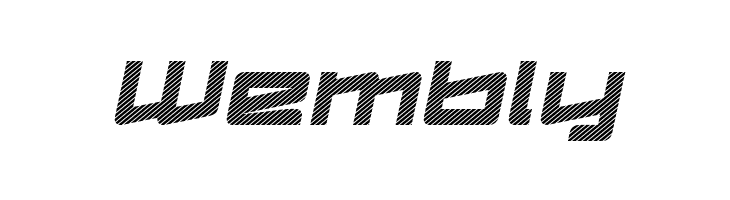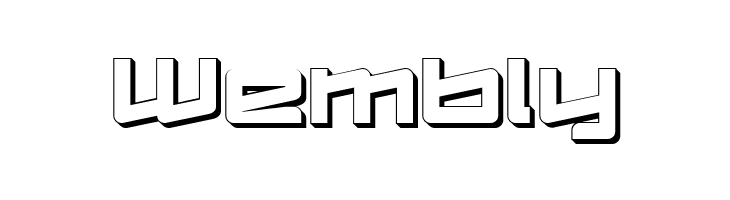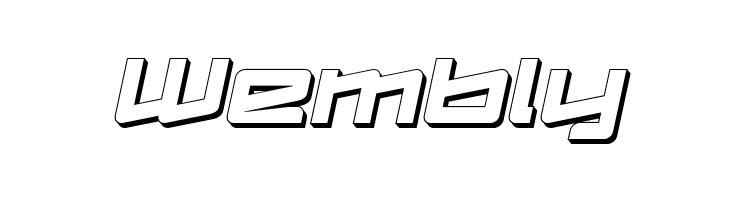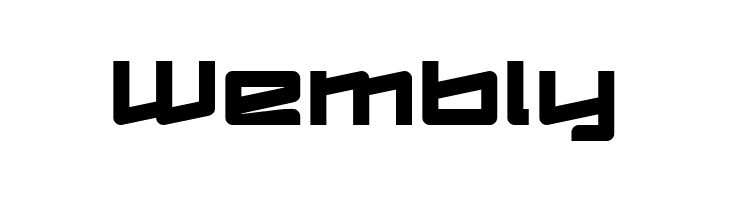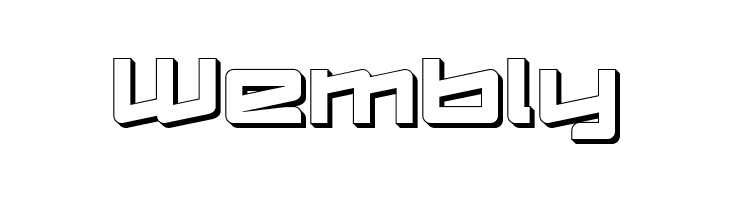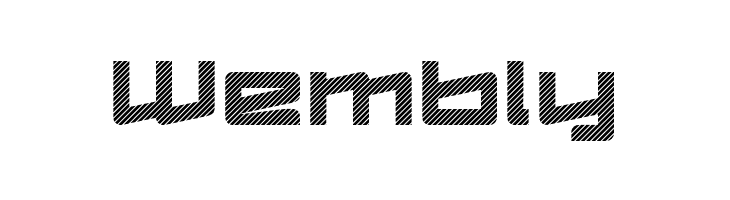
A dynamic, striped, italic font with a modern and bold appearance.
A bold, extruded font with a three-dimensional, geometric style.
A bold, extruded, and italic font with a futuristic 3D effect.
A bold, italic font with a modern, angular design and a futuristic feel.
A bold, geometric font with a futuristic and modern style.
A bold, italicized font with a modern, angular design.
A bold, extruded font with a 3D effect and geometric structure.
A bold, geometric font with a futuristic and edgy design.
A bold, geometric font with diagonal stripes, ideal for striking display use.